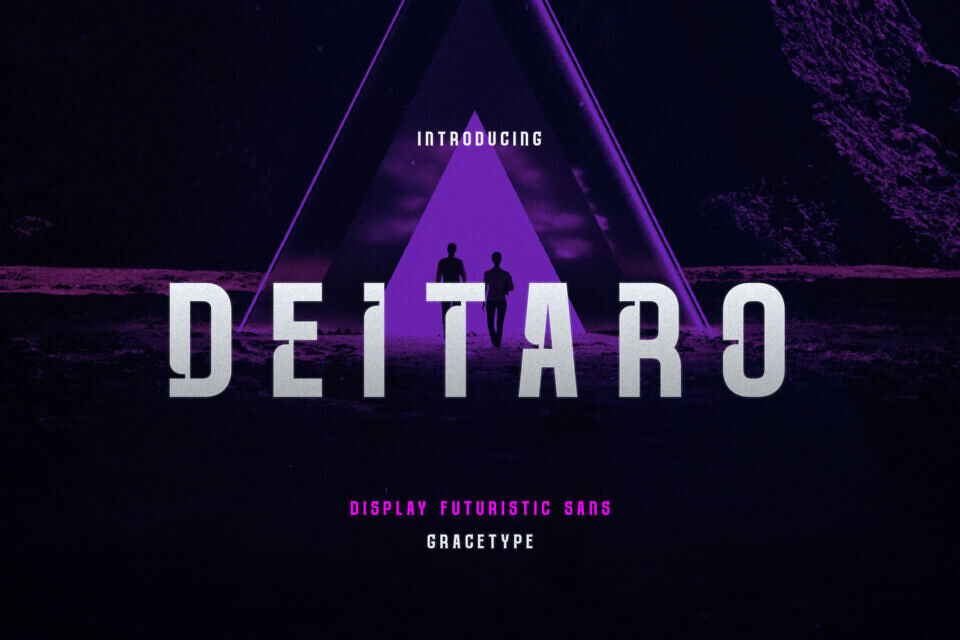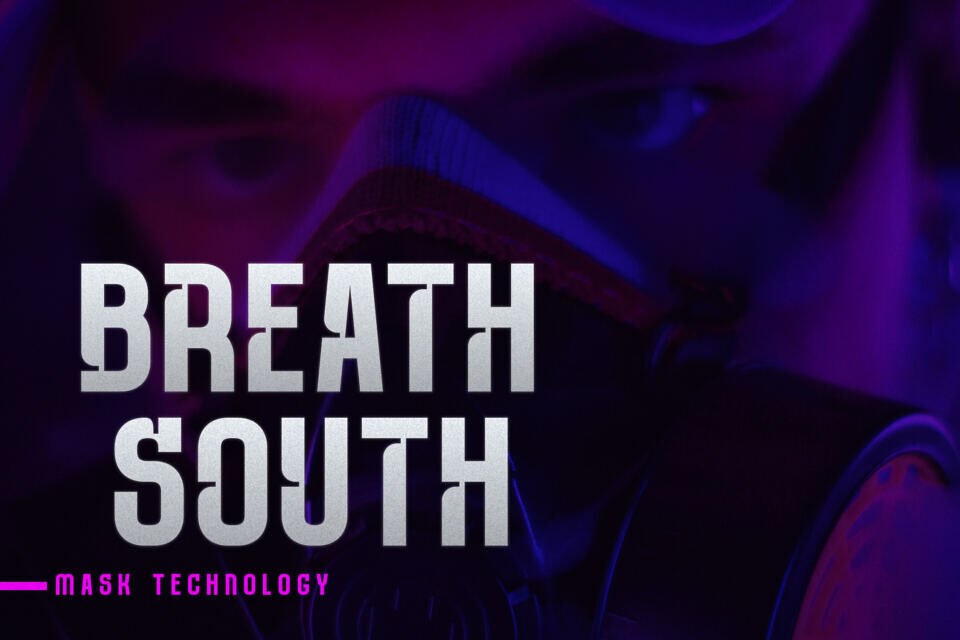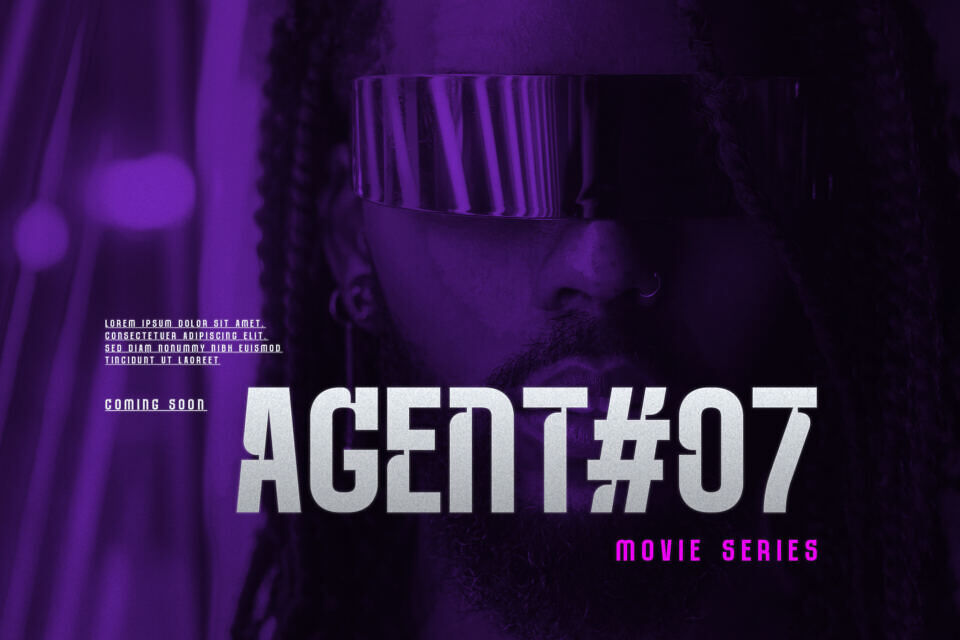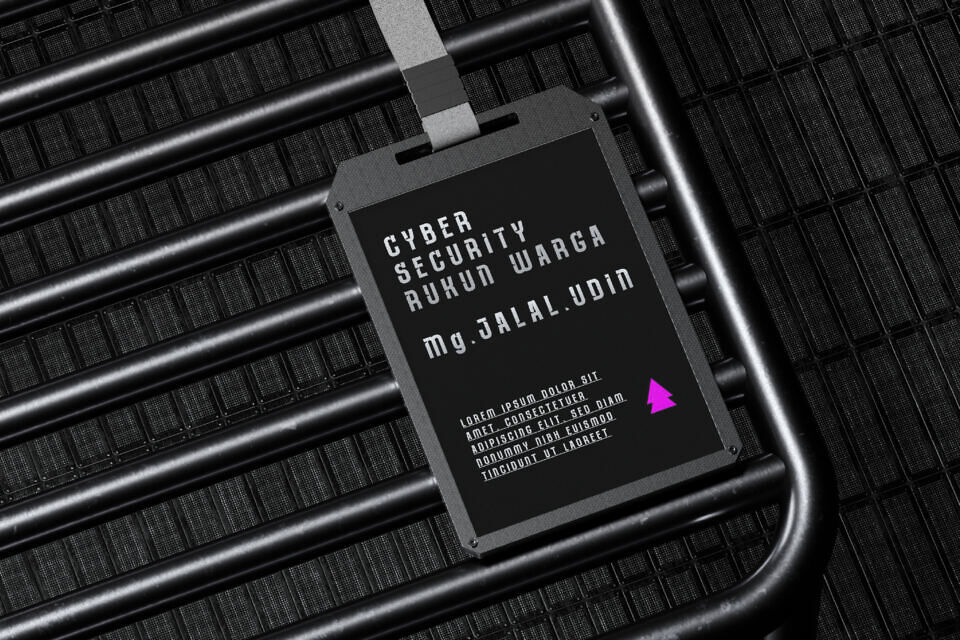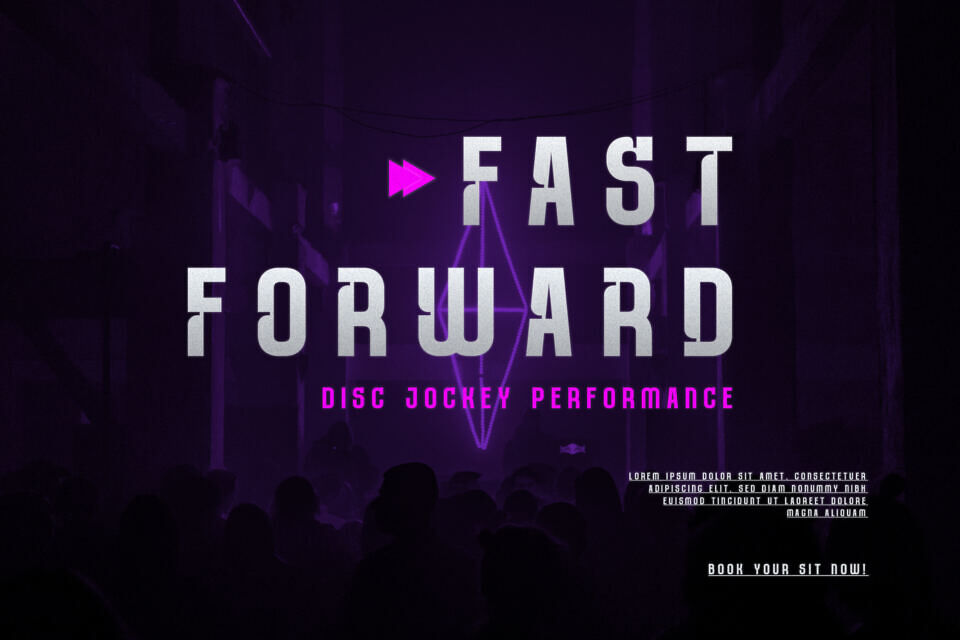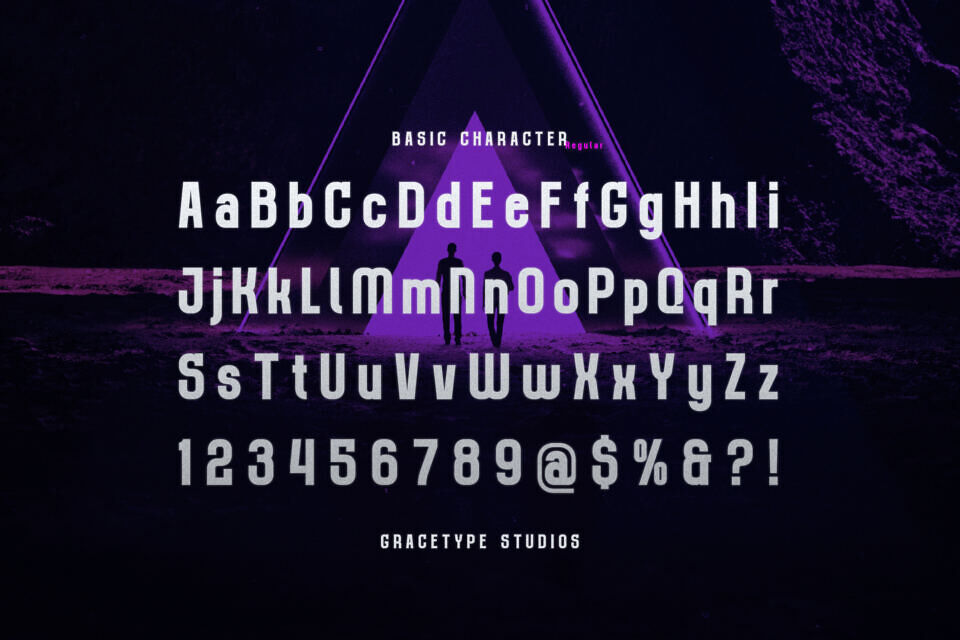
Deitaro Font
Deitaro is a futuristic display sans designed for maximum cinematic impact. This typeface features tall, blocky letterforms with a “cyber-grid” soul, defined by unique stencil-like cuts and sharp, angular silhouettes that mimic sci-fi machinery.
With its commanding weight and industrial rhythm, Deitaro is the premier choice for eSports team identities, independent gaming studios, sci-fi book titles, and high-tech “neon-noir” social media headers.